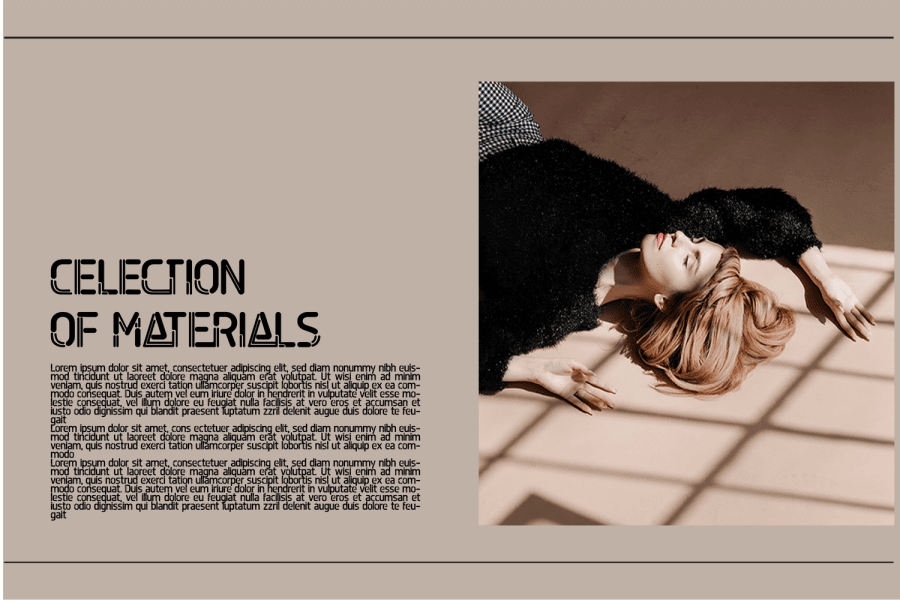
A Space is a Techno type font that can be used on any device such as PC, Mac, Linux, iOS and Android. This font has 10 styles available (A Space Thin Demo A Space Thin Italic Demo A Space Regular Demo A Space Light Italic Demo A Space Light Demo A Space Italic Demo A Space.